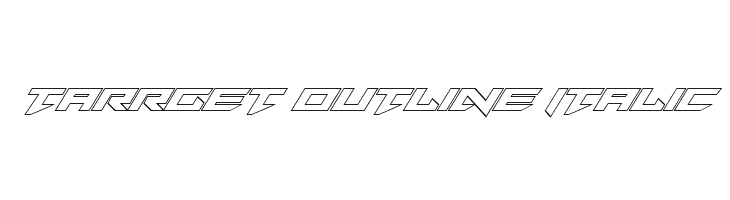
A bold, italicized outline font with a modern and dynamic style.
A bold, outlined font with a geometric and modern style.
A dynamic, italicized outline font with a futuristic and angular design.
A bold, geometric outline font with a futuristic and angular design.
A modern, italic outline font with bold, geometric characters.
A bold, geometric outline font with a futuristic, tech-inspired design.
A bold, futuristic outline font with angular, geometric characters.